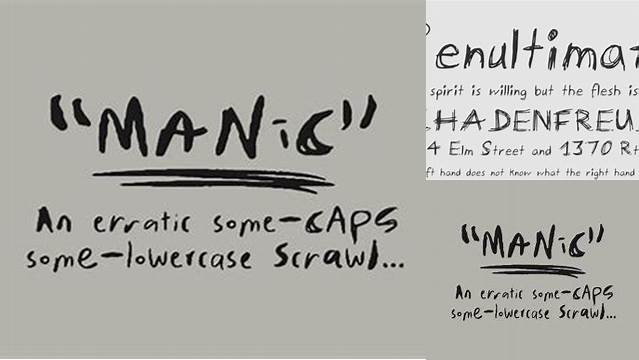
So, you're on the hunt for that perfect font, huh? Something with a bit of character, a dash of the unexpected, and maybe even a hint of madness? Well, buckle up, because we're diving deep into the world of manic erratic regular font free downloads! This isn't just about finding a font; it's about discovering a typeface that screams YOU. Whether you're a designer, a blogger, or just someone who loves to play with typography, finding the right font can make all the difference. Let's get started, guys!
1. Understanding the Allure of Manic Erratic Fonts
What is it about manic erratic fonts that captures our attention? It's the unpredictability, the break from the norm, and the sheer artistic expression they embody. These fonts aren't your typical Arial or Times New Roman; they're fonts with attitude, fonts that tell a story. They're perfect for projects that need a bit of edge, a bit of personality, or just a whole lot of FUN. Think about using them for posters, album covers, or even branding materials that want to stand out. The key is to use them strategically. You don't want your entire design to look chaotic, but a touch of manic erratic font can add just the right amount of spice.
3. Key Characteristics of a Manic Erratic Regular Font
So, what exactly defines a manic erratic regular font? Well, it's all about the inconsistencies. You might see varying stroke widths, unusual letterforms, and a general sense of playfulness. These fonts often have a hand-drawn feel, as if someone just let loose with a pen and paper. They're not perfect, and that's precisely their charm. A true manic erratic font laughs in the face of perfection and embraces the beauty of imperfection. Think of it as the rebel of the font world.
4. The Importance of Legibility with Unconventional Fonts
Alright, let's talk legibility. While manic erratic fonts are all about being different, you still want people to be able to read your message. It's a fine line, guys! The key is to use these fonts sparingly, and in larger sizes. A headline or a short phrase is perfect, but avoid using them for large blocks of text. Your readers will thank you! Also, consider the contrast between the font and the background. A highly erratic font might need a simpler background to ensure it stands out and remains readable.
5. Utilizing Manic Erratic Fonts in Graphic Design Projects
So, how can you actually use manic erratic fonts in your graphic design projects? Think about using them for logos, posters, flyers, or even social media graphics. They're great for adding a touch of personality and uniqueness to your designs. Just remember to balance them with more traditional fonts to maintain a sense of harmony. A little manic erratic goes a long way!
6. Pairing Manic Erratic Fonts with Other Typefaces
Speaking of balance, let's talk about pairing manic erratic fonts with other typefaces. The goal is to create a visual hierarchy and ensure that your design doesn't look too chaotic. A good rule of thumb is to pair a manic erratic font with a simpler, more neutral font. Think of it as a yin and yang situation. The erratic font brings the excitement, while the neutral font provides the stability.
7. Exploring Different Styles of Manic Erratic Fonts
Did you know that manic erratic fonts come in different styles? Some are bold and aggressive, while others are quirky and whimsical. Some have a handwritten feel, while others look more digitally distorted. Explore different styles to find the perfect fit for your project. Don't be afraid to experiment, guys! The world of manic erratic fonts is vast and full of surprises.
8. The Psychological Impact of Using Manic Erratic Fonts
Fonts aren't just about aesthetics; they also have a psychological impact. Manic erratic fonts can evoke feelings of excitement, energy, and even a bit of rebellion. They're perfect for projects that want to stand out and challenge the status quo. However, use them carefully, as they can also be perceived as chaotic or unprofessional if not used correctly.